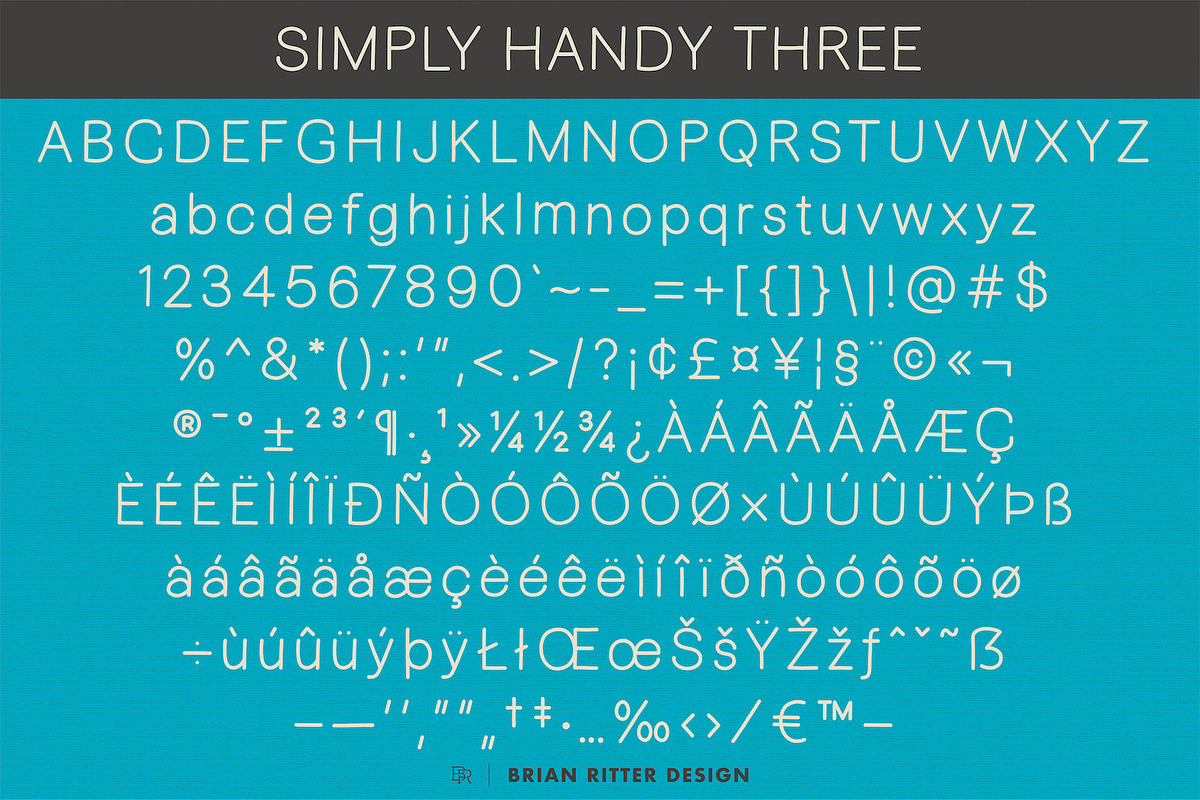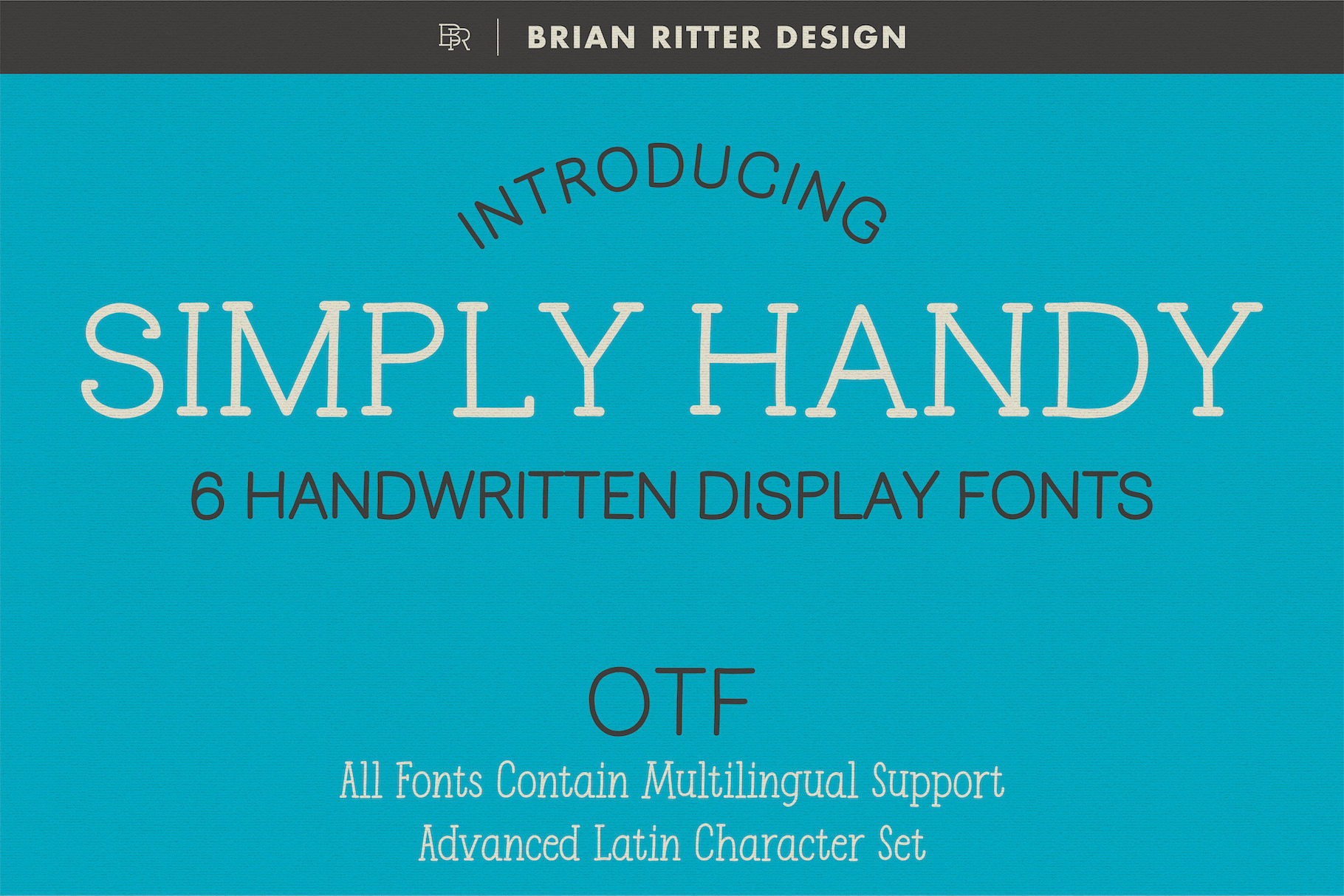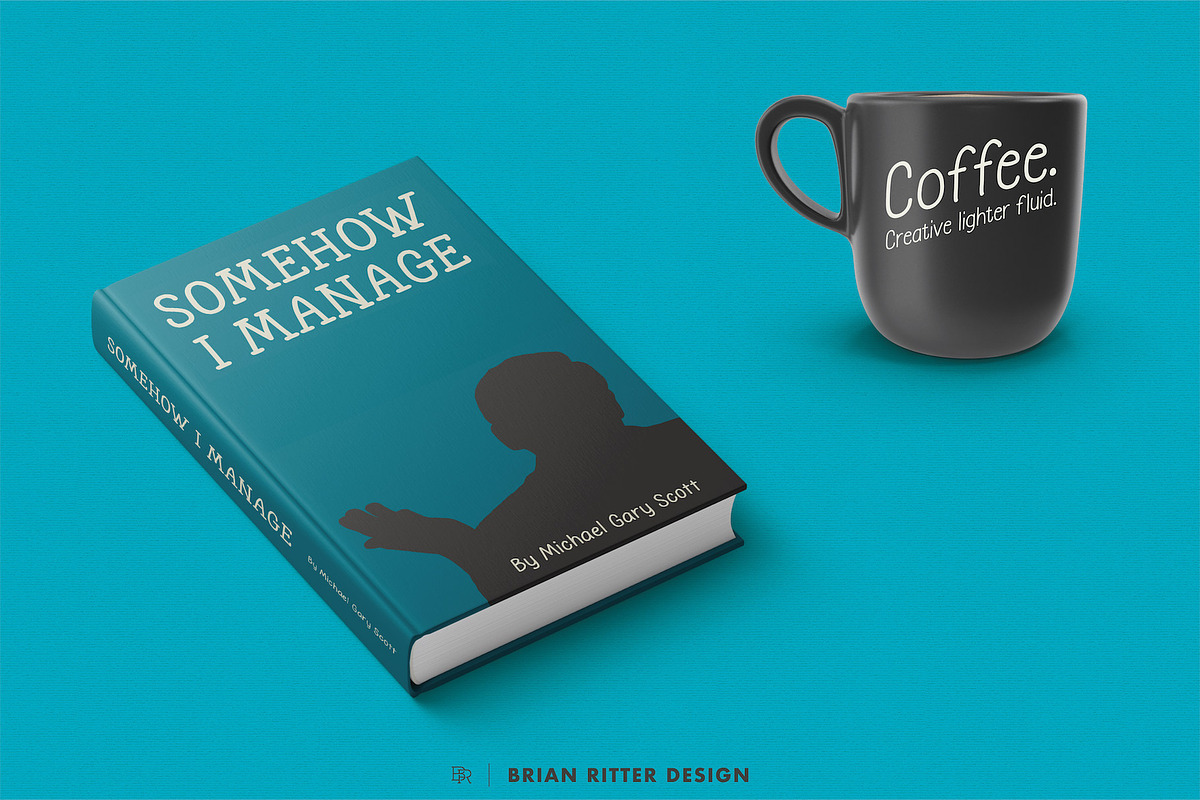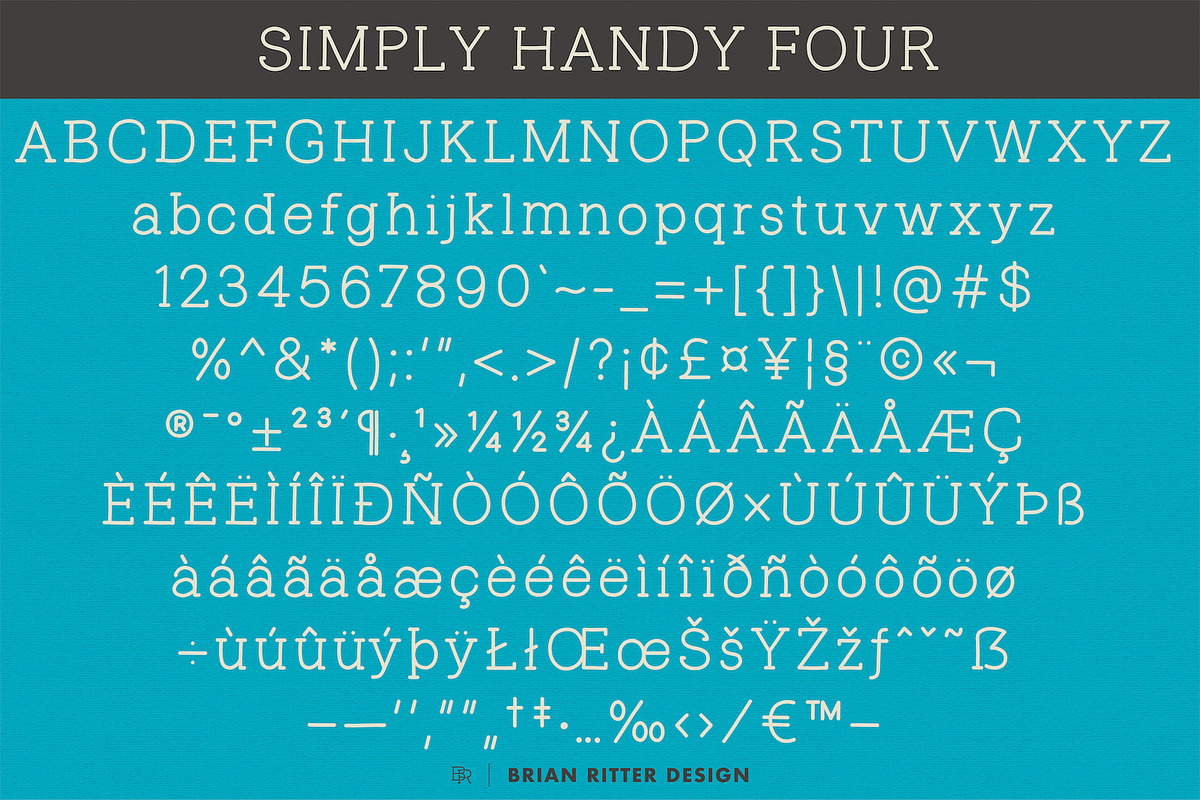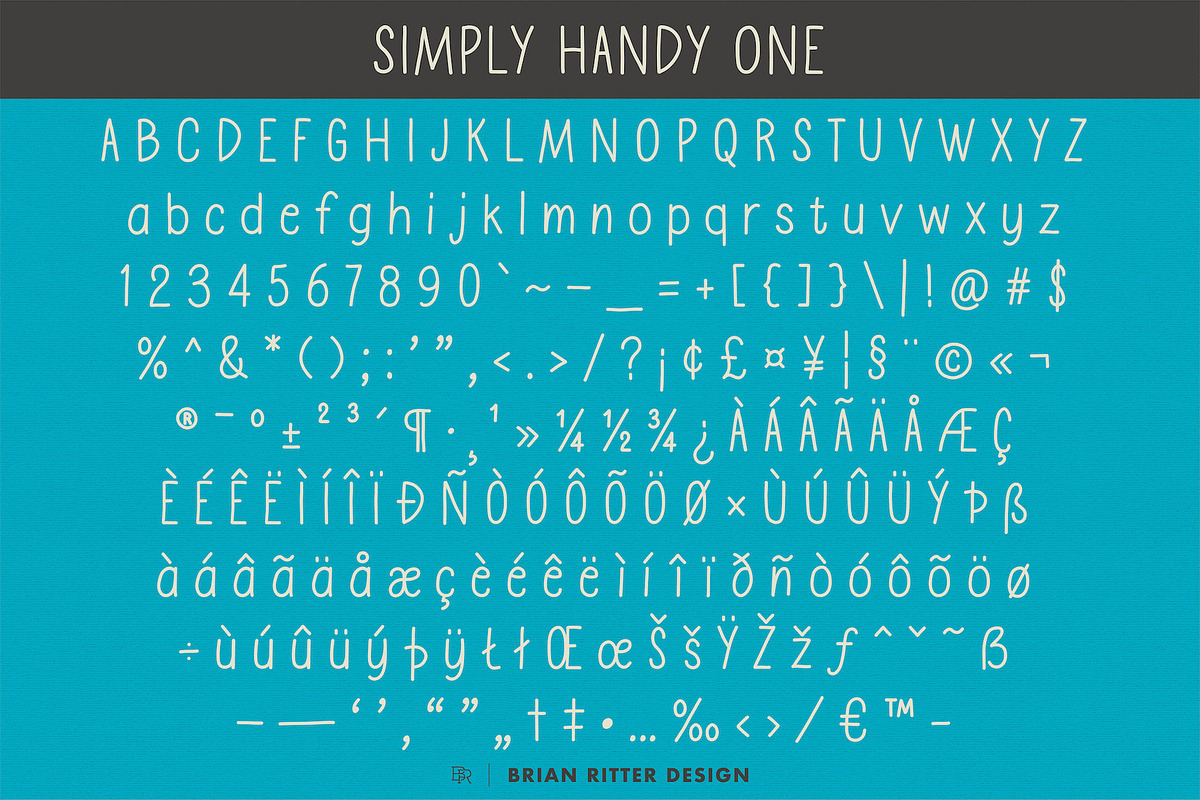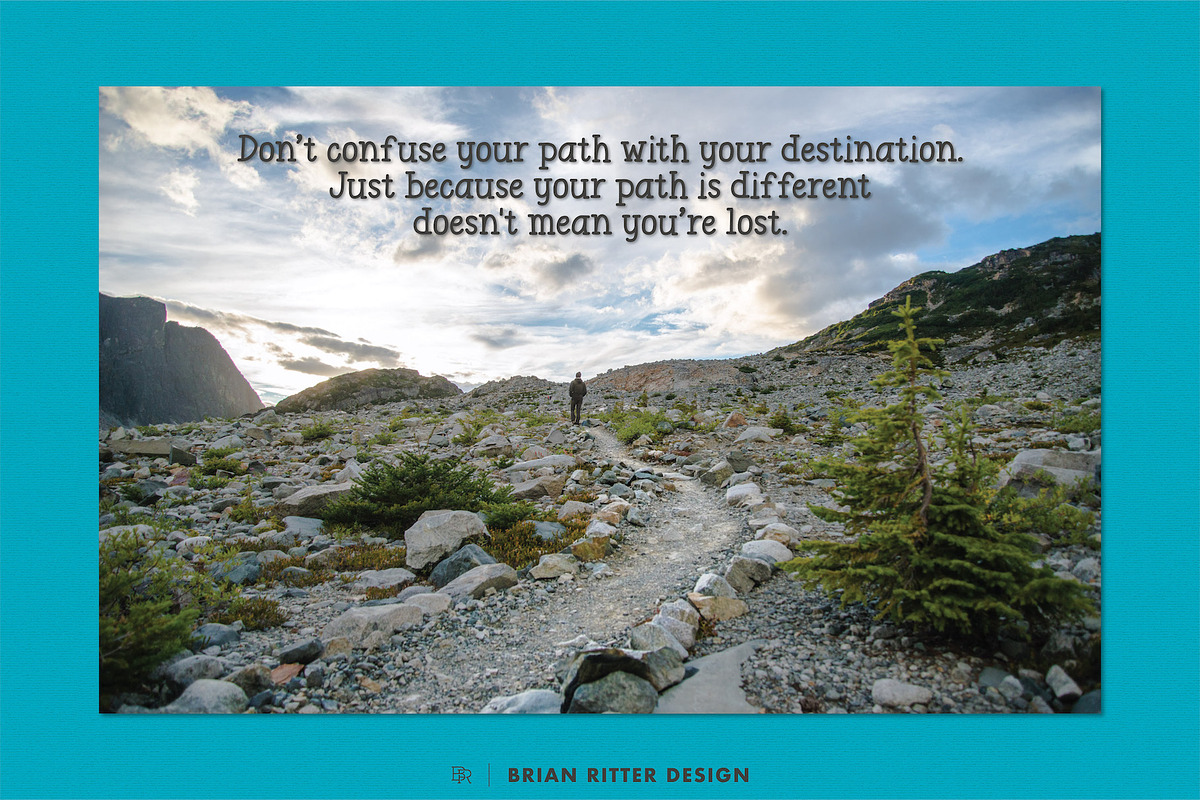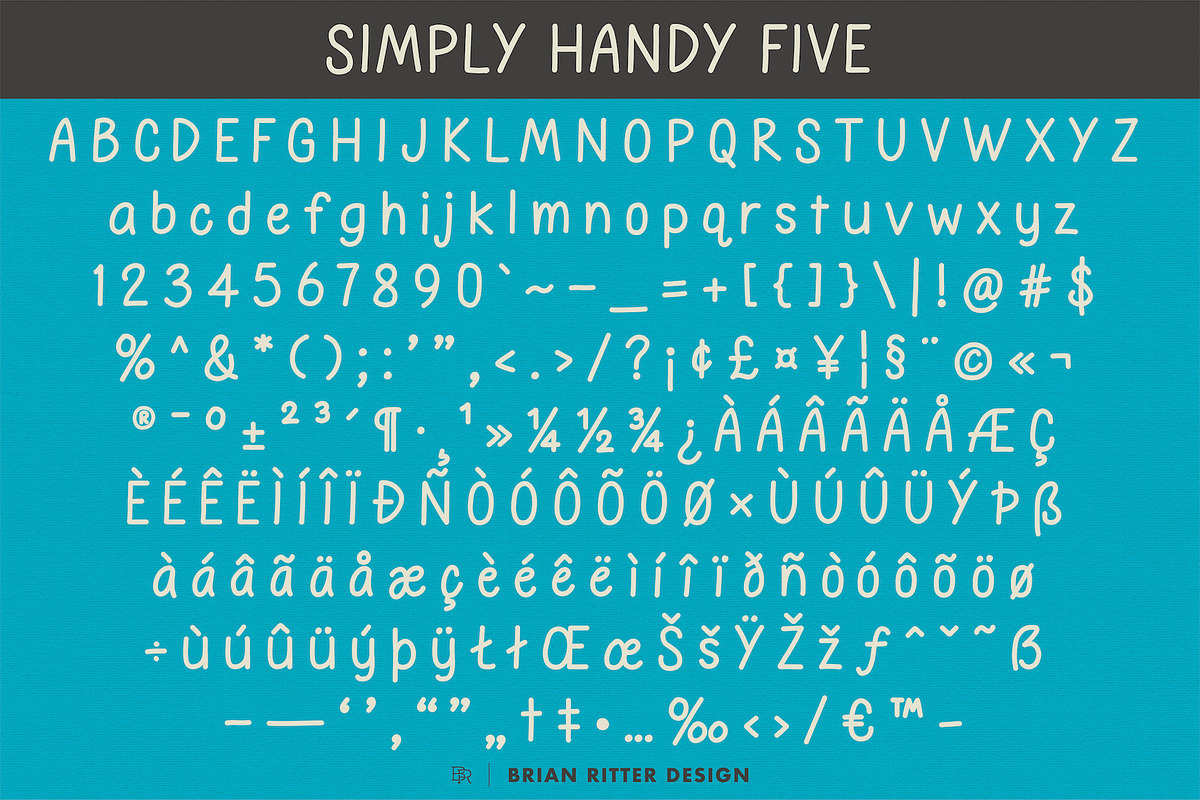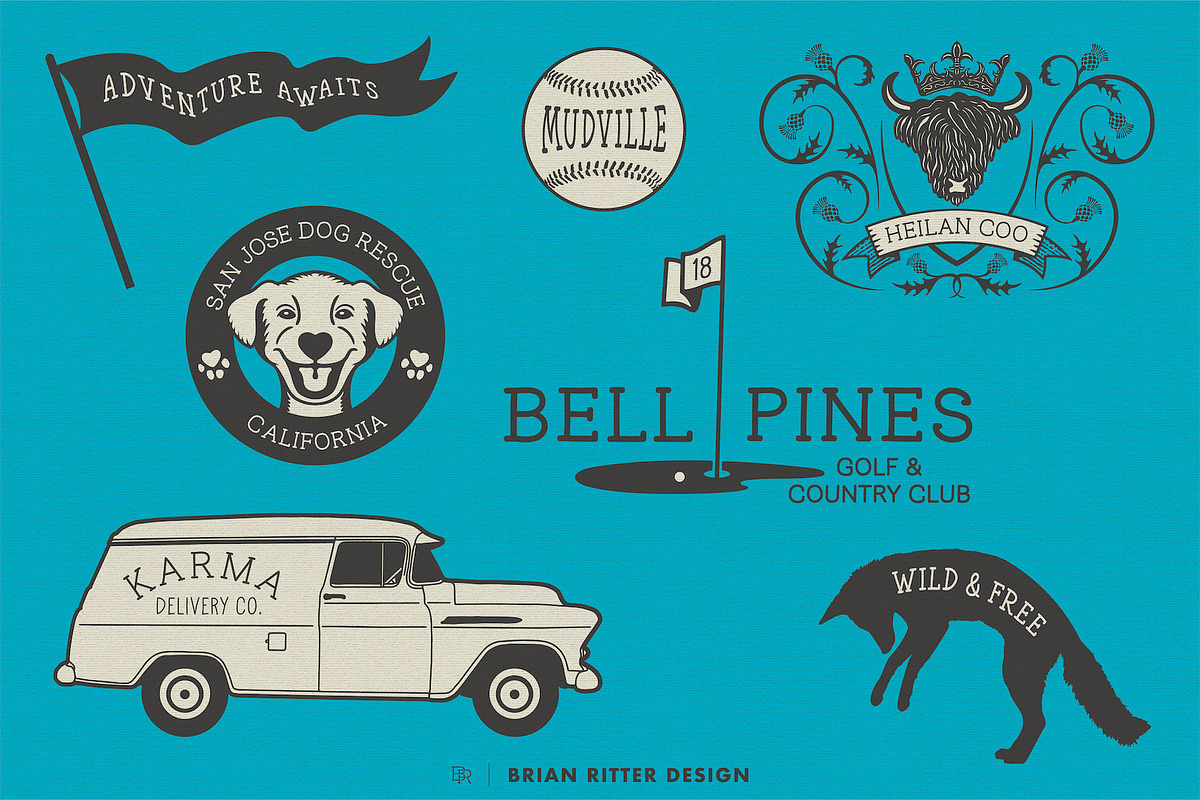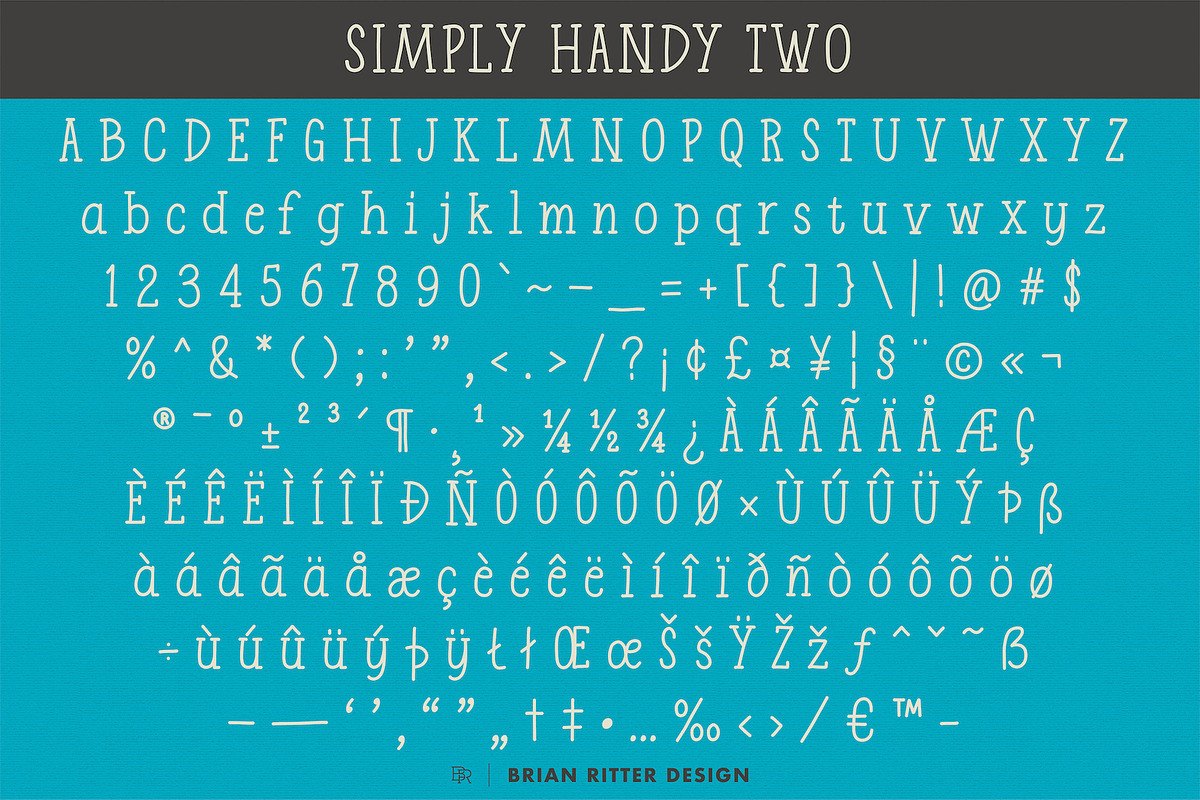
Simply Handy - Handwritten Fonts
Simply Handy fonts are handwritten and great for giving your design an organic handmade quality. OTF font format and includes a PDF guide of all characters.